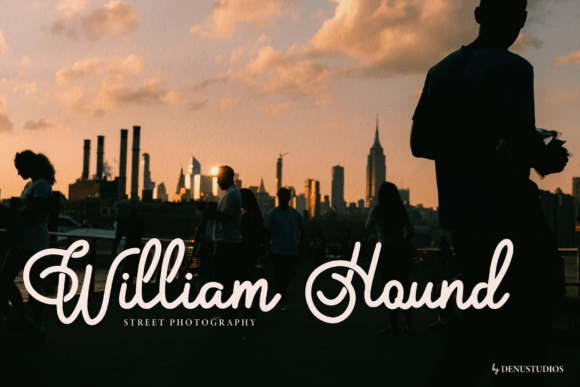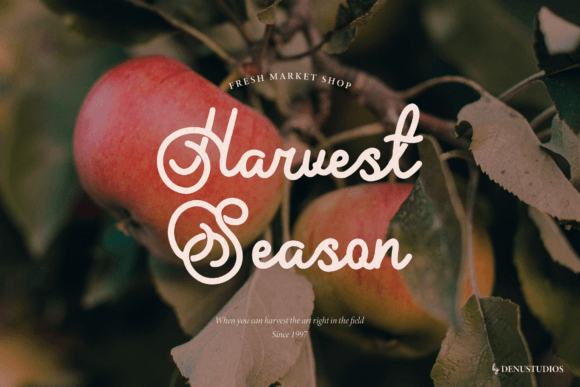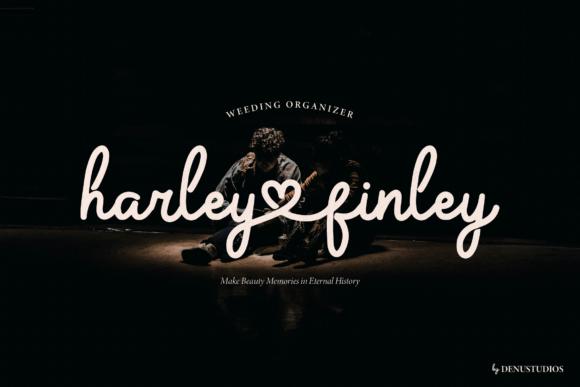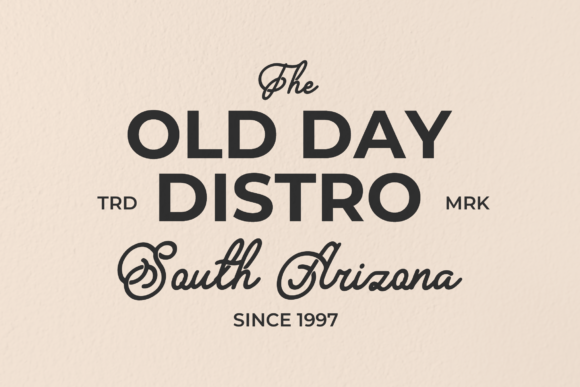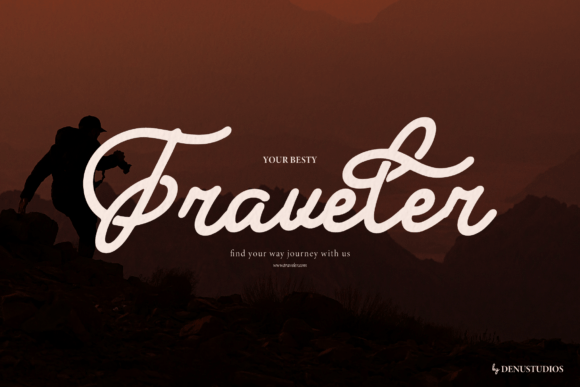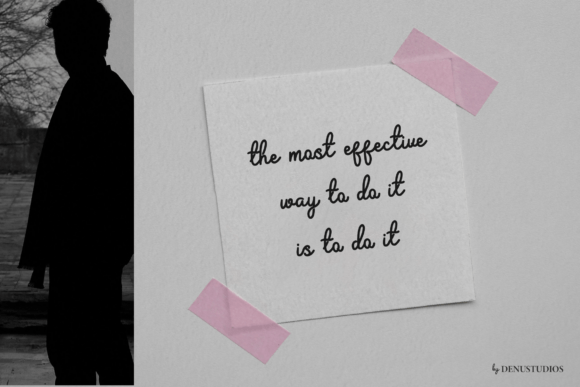
Introducing Alaredy Font: Elevate Your Designs with Elegance and Sophistication
In the world of typography, a font can make or break a design. For designers and crafters looking for a touch of elegance and modernity, Alaredy Font is an exceptional choice. Alaredy is a smooth and elegant monoline script font that has been making waves in the design community, and for good reason. Its clean, continuous lines give it a stylish and modern look, perfect for a variety of creative projects.
What Makes Alaredy Font Stand Out?
Alaredy Font boasts a unique monoline script style that sets it apart from other fonts. Its smooth, flowing lines create a sense of continuity and fluidity, making it ideal for designs that require a touch of sophistication. Whether you’re working on a logo, quote, or any other creative project, Alaredy Font is sure to impress.
Key Features of Alaredy Font
- Smooth and Elegant Lines: Alaredy Font features clean, continuous lines that give it a stylish and modern look.
- Monoline Script Style: Its unique monoline script style makes it perfect for designs that require a touch of elegance and sophistication.
- Versatile: Alaredy Font is suitable for a variety of creative projects, including logos, quotes, and more.
- Modern and Stylish: Its modern and stylish look makes it perfect for designers and crafters looking for a font that can elevate their designs.
Alaredy Font is a perfect choice for designers and crafters who want to add a touch of elegance and sophistication to their designs. Its smooth and elegant lines make it ideal for a variety of projects, including:
- Logos: Create stunning logos that make a lasting impression with Alaredy Font.
- Quotes: Add a touch of elegance to your quotes with Alaredy Font’s smooth and flowing lines.
- Creative Projects: Use Alaredy Font to elevate your creative projects, such as brochures, posters, and more.
Why Choose Alaredy Font?
With so many fonts available, why choose Alaredy Font? Here are just a few reasons:
- Unique Style: Alaredy Font’s monoline script style sets it apart from other fonts.
- Elegant and Sophisticated: Its smooth and elegant lines give it a stylish and modern look.
- Versatile: Alaredy Font is suitable for a variety of creative projects.
- Easy to Read: Its clean and continuous lines make it easy to read, even at small sizes.
Tips for Using Alaredy Font
Here are a few tips for using Alaredy Font in your designs:
- Pair it with Other Fonts: Experiment with pairing Alaredy Font with other fonts to create a unique look.
- Use it for Headlines: Alaredy Font is perfect for headlines and titles, where its elegant and sophisticated look can shine.
- Experiment with Colors: Try using Alaredy Font in different colors to add depth and interest to your designs.
In conclusion, Alaredy Font is an exceptional choice for designers and crafters looking for a touch of elegance and sophistication in their designs. Its smooth and elegant lines, unique monoline script style, and versatility make it perfect for a variety of creative projects. Whether you’re working on a logo, quote, or any other design, Alaredy Font is sure to impress.